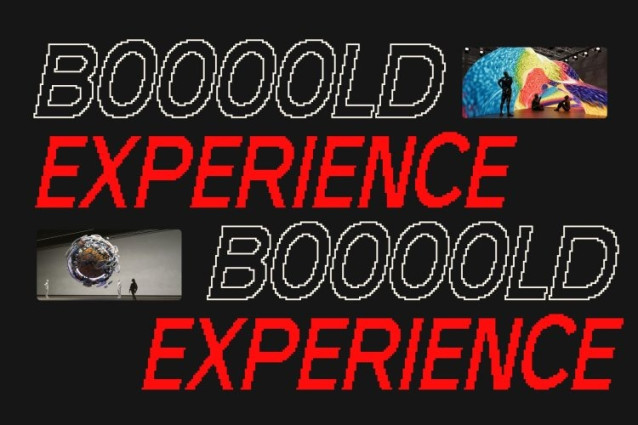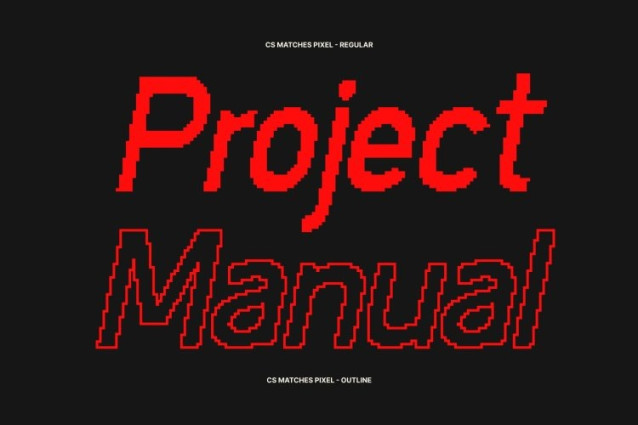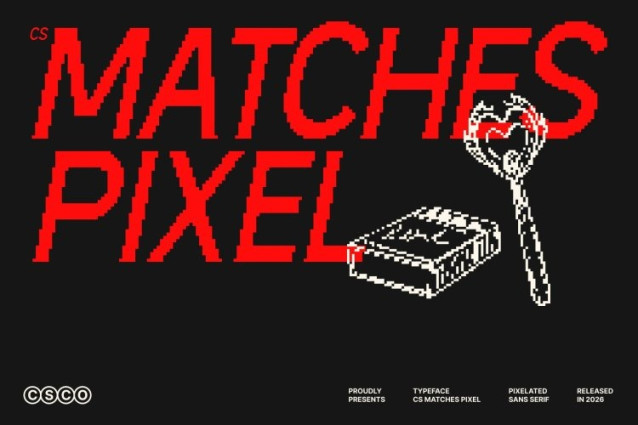
CS Matches Pixel Font
CS Matches Pixel Font This is a modern sans serif font featuring slim strokes, sharp corners, and a distinctive pixel-inspired structure. Its clean construction projects professionalism while introducing a subtle retro-digital character, making it ideal for designs that demand clarity, precision, and visual impact.
Slim, Structured, and Pixel-Driven Design
The slightly slender letterforms and precise geometric angles create a refined, polished appearance. Enhanced by pixel styling, the font gains a nostalgic digital edge reminiscent of early screen typography and old-technology aesthetics, while remaining highly readable and contemporary.
Strong Professional Presence with Digital Character
This font balances sophistication and strength without feeling rigid. The sharp lines and pixel details make it eye-catching yet controlled, delivering a confident visual voice that works seamlessly across modern and tech-inspired designs.
Perfect for Digital, Editorial, and Retro-Tech Projects
Ideal for digital interfaces, branding, editorials, tech visuals, and retro-inspired layouts, this font blends modern professionalism with pixel aesthetics. Its sleek structure and nostalgic digital feel ensure every project communicates clarity, innovation, and timeless technological charm.